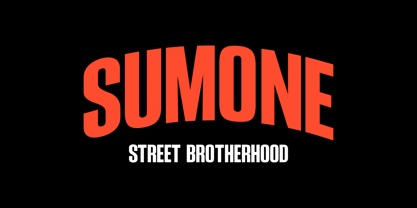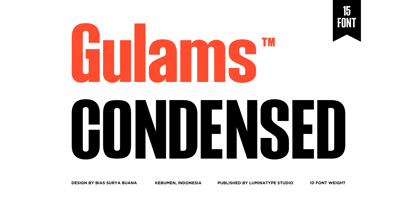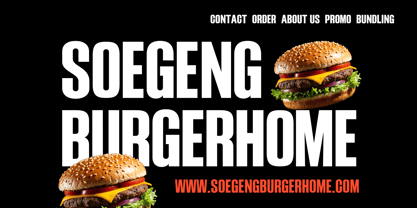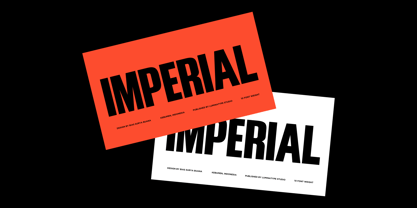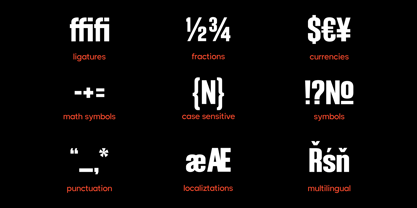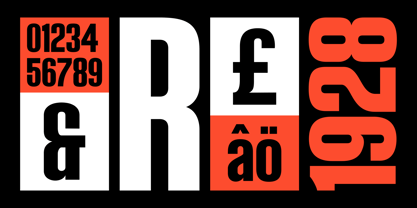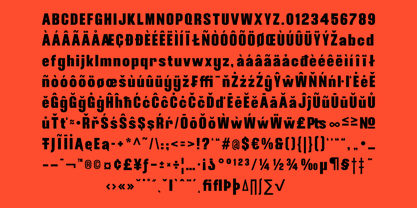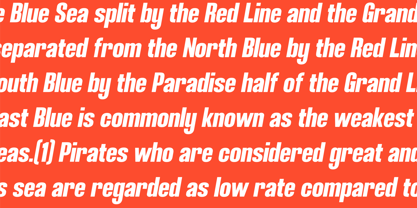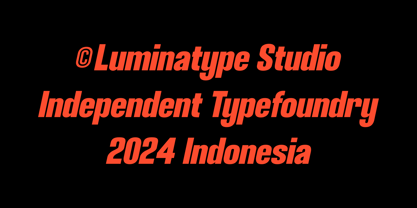
Gulams Condensed
by Luminatype Studio
The Gulams Condensed Font Family was designed by Bias Surya Buana and published by Luminatype Studio. Gulams Condensed contains 15 styles and family package options. More about this family
Gulams Condensed uses the magic of a modern condensed font to boldly highlight key elements in any design. Crafted for impact across print and digital landscapes, its robust character set is available in an impressive 15 font with 10 weights and 5 slant styles, promising variety and adaptability. ideal for body text and headlines, meshes seamlessly with the Slanted style which, brimming with energy and innovation, is specifically designed to catch and hold attention. In its narrowed proportions and carefully articulated details, Gulam Condensed isn't just exceptionally readable but stylishly modern, subtly infusing any design project with a contemporary edge. From brand identities to posters and beyond, Gulams Condensed is the consummate choice for injecting your graphic designs with a touch of professional magnetism.
Designers: Bias Surya Buana
Foundry: Luminatype Studio
Founded in 2023 by designer Bias Surya Buana, Luminatype Studio is a premier font design studio dedicated to creating aesthetically pleasing and elegant typefaces. Each font is meticulously crafted to blend modern trends with timeless sophistication, establishing it as a high-end typography house. The studio features a unique collection tailored to meet diverse design needs across various industries. Whether you're aiming to establish a striking brand identity, develop captivating editorial layouts, or enhance digital interfaces with distinctive character and charm, Luminatype Studio provides the perfect solutions for all your typographic requirements. With a focus on innovative design and quality craftsmanship, Luminatype Studio stands out in the competitive landscape of font design, making it a trusted choice for designers and brands alike.